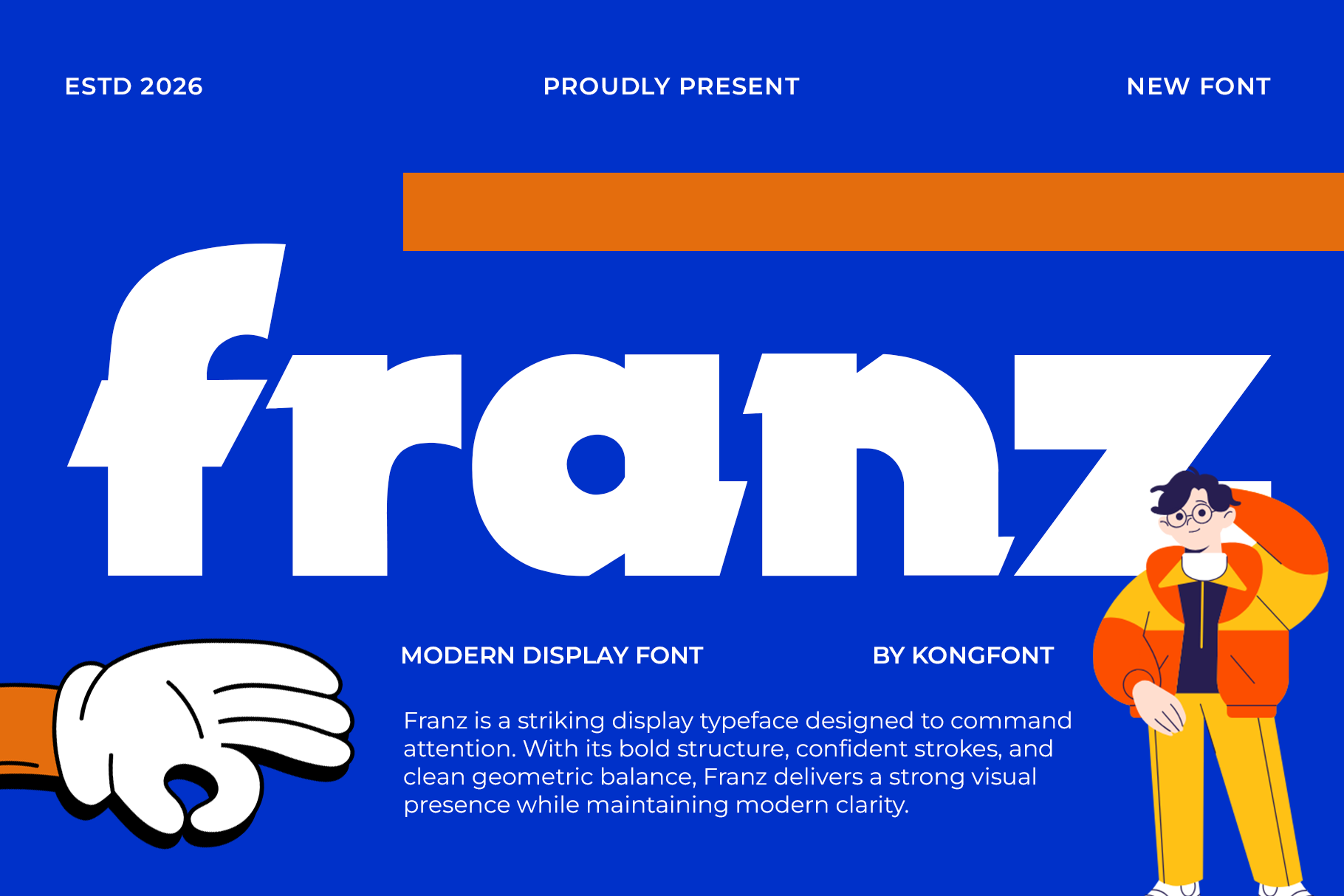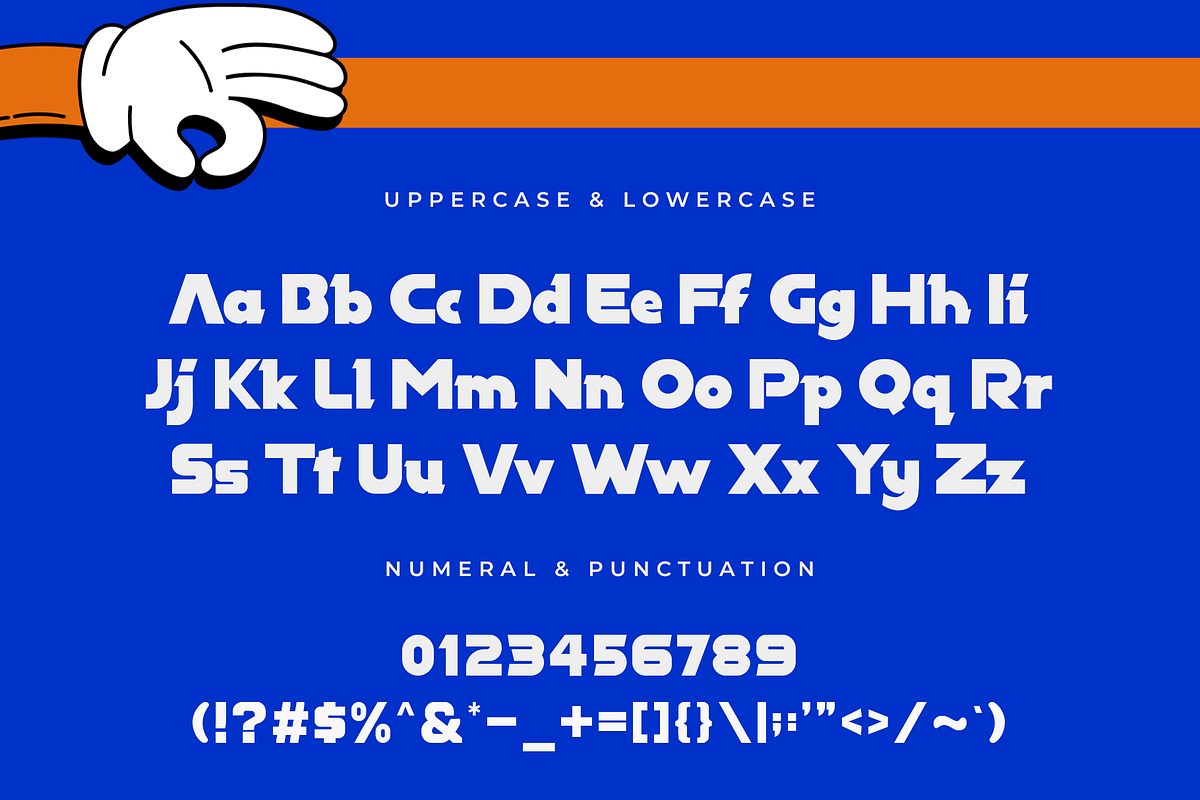
Franz – Modern Display Font
Franz is a modern display font crafted to deliver bold visual impact with a clean contemporary style. Designed with strong letterforms, sharp structure, and confident spacing, Franz is perfect for grabbing attention in large size typography.
Ideal for posters, branding, headlines, logos, packaging, social media graphics, promotional materials, and merchandise design, Franz performs beautifully as a statement font. Its modern aesthetic makes it suitable for creative, urban, sporty, and lifestyle themed projects.